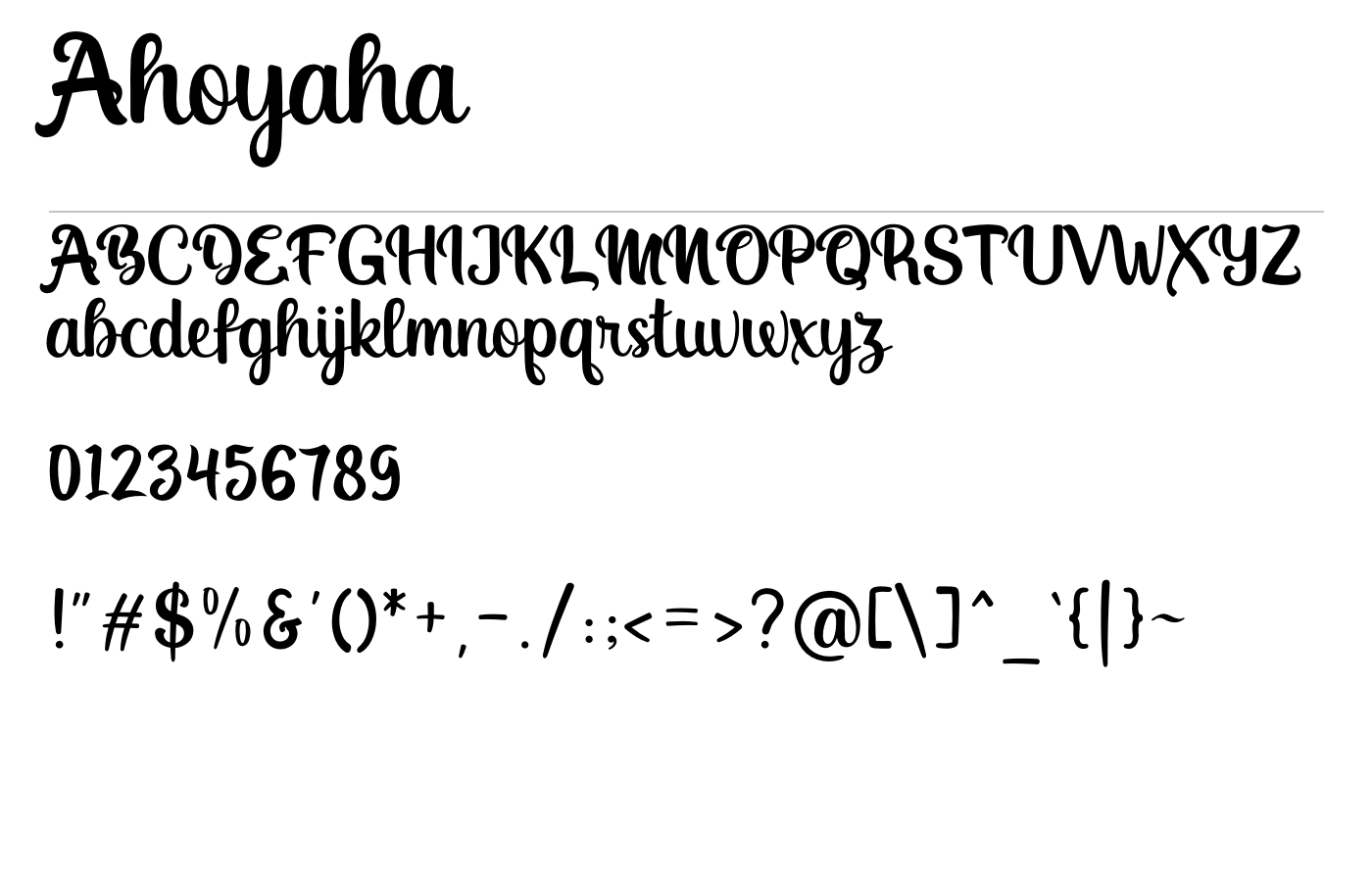
Ahoyaha is a lively script font with a friendly and playful character, featuring bold strokes and smooth, rounded edges that give it a warm, handmade feel. Its clear letterforms and moderate contrast make it ideal for creative branding, invitations, and casual headlines, bringing a cheerful and approachable touch to any design. This font works well in projects that seek a fun yet polished look, especially for informal and artistic contexts.
Ahoyaha Font